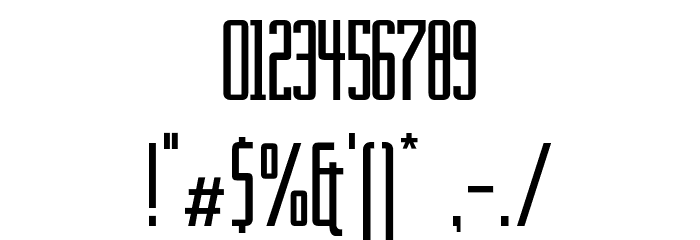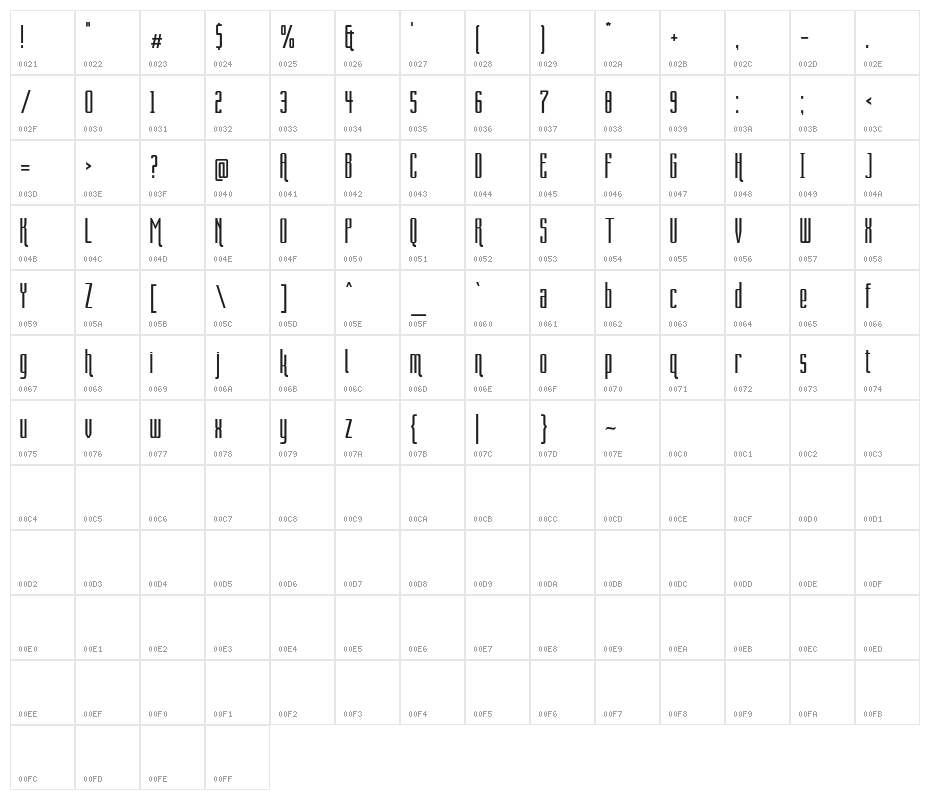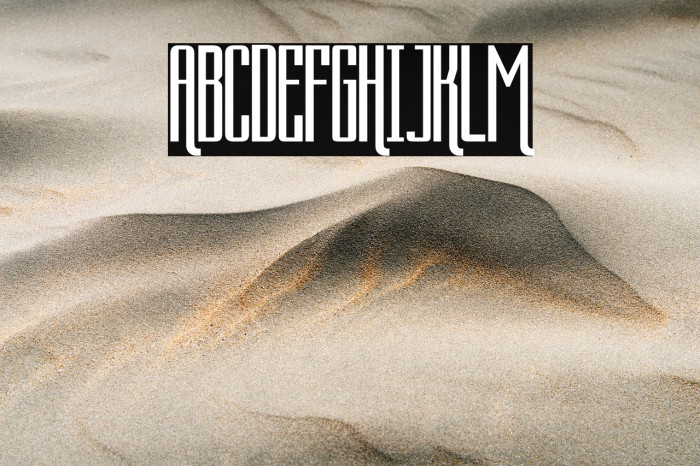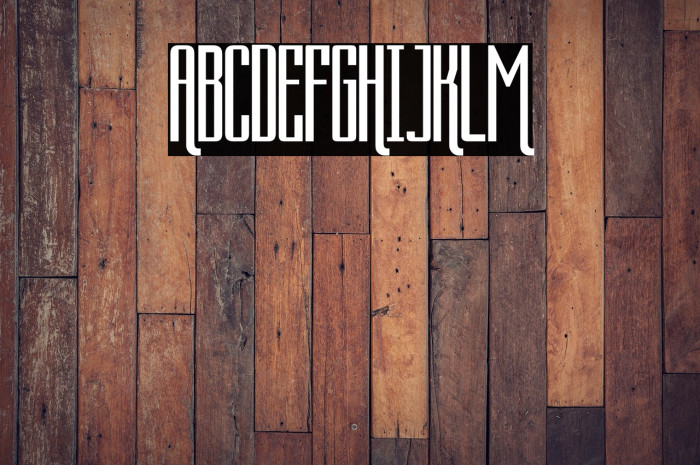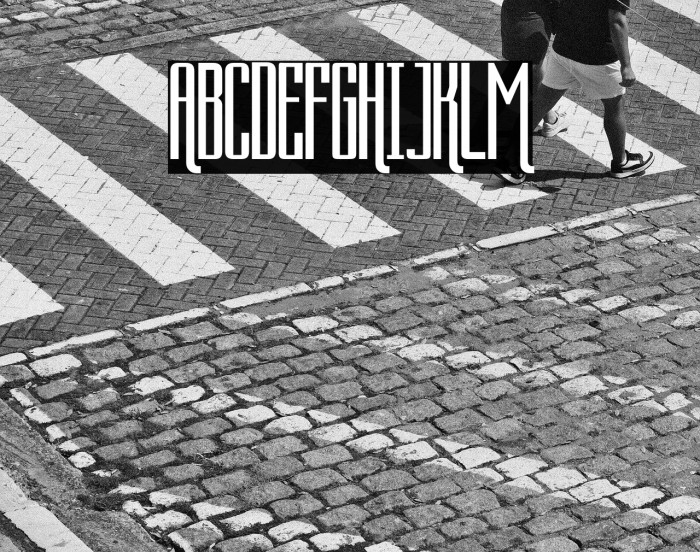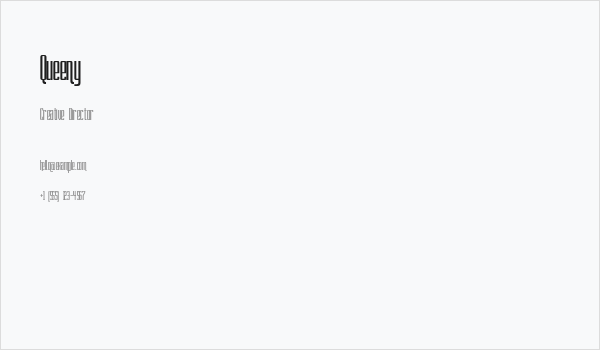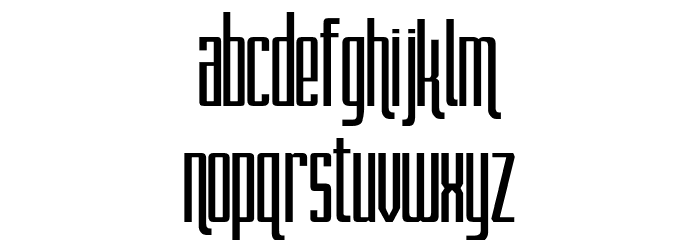
Queeny Font
Queeny Description
This font features a tall, narrow design with elongated vertical lines and minimal curves, giving it a modern and sleek appearance. The uppercase and lowercase letters maintain a consistent height, contributing to a uniform look. The numerals and special characters follow the same design principles, ensuring cohesiveness across all characters. The font's unique style is characterized by its sharp edges and geometric shapes, making it stand out in any design project.
| Proposed Projects | Ideal for modern branding, posters, and headlines where a distinctive and stylish look is desired. |